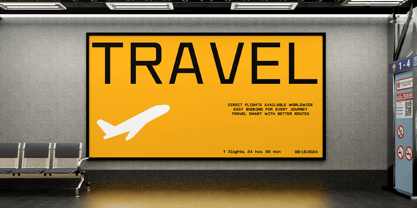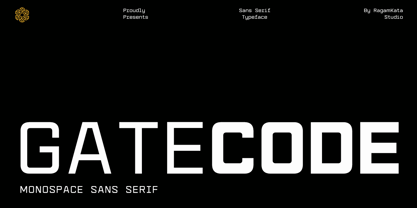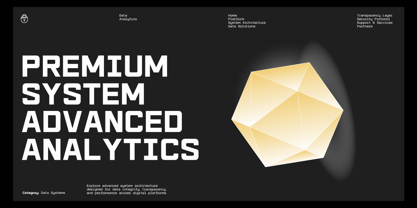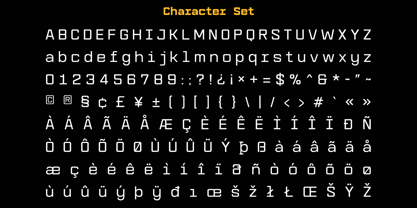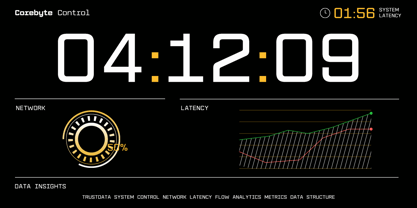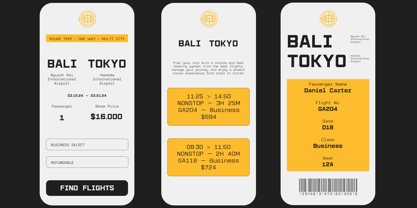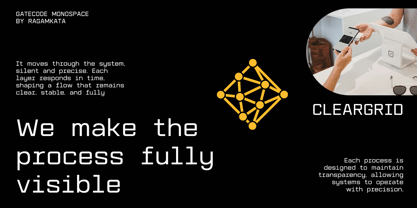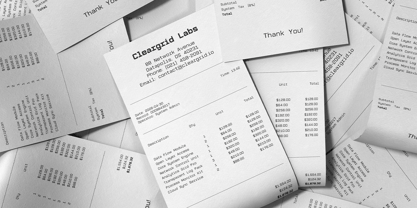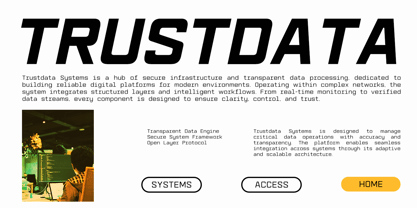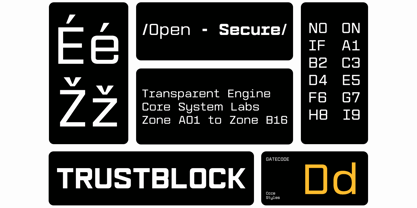
Gatecode
by RagamKata
The Gatecode Font Family was designed by Yogiswhara Dio Prakoso Riadi and published by RagamKata. Gatecode contains 4 styles and family package options. More about this family
Gatecode is a modern monospace sans serif font inspired by futuristic interfaces, coding systems, and digital technology aesthetics. Featuring clean geometric construction, balanced spacing, and a strong techno personality, this typeface delivers a sleek modern appearance perfect for contemporary branding and creative display projects. Its monospace structure creates a distinctive rhythm that feels minimal, professional, and highly functional.
Designed for versatility, Gatecode works beautifully for technology branding, UI/UX design, gaming visuals, startup identity, posters, editorial layouts, web design, coding themes, digital products, social media graphics, and cyber-inspired creative projects. The clean letterforms and modern structure make it ideal for projects that need a futuristic and technical visual style while maintaining excellent readability.
Whether you are building a modern tech brand, creating sci-fi posters, designing software interfaces, or developing futuristic visual concepts, Gatecode brings a clean digital aesthetic with strong contemporary character. This font is perfect for designers seeking a minimal monospace typeface with modern technology-driven appeal.
• Regular, Bold, Italic Style
• Uppercase & Lowercase
• Number & Punctuation
• Multilingual Support
• Monospace Style